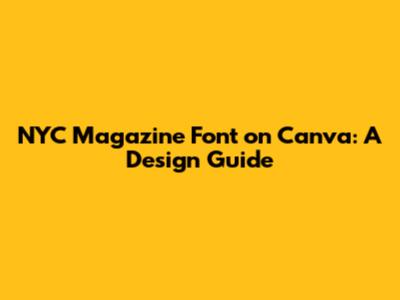
- Serif fonts: Garamond, Times New Roman (yes, it can be stylish!), and Didot are all great options for headlines or titles.
- Sans-serif fonts: Helvetica, Arial, and Futura provide clean and modern alternatives for body text or subheadings.
- Playfair Display: A beautiful serif font that works well for headlines.
- Montserrat: A clean and modern sans-serif font that's perfect for body text.
- Lora: A well-balanced serif font that's both readable and stylish.
- Oswald: A versatile sans-serif font that can be used for headlines or body text.
Hey guys! Ever flipped through The New Yorker or New York Magazine and thought, "Wow, that font is amazing!"? Well, you're not alone. The fonts they use have a certain je ne sais quoi – a sophisticated, stylish vibe that screams "big city." And the awesome news? You can totally snag a similar look for your own projects using Canva. Let's dive into how to achieve that iconic NYC magazine aesthetic right within Canva, making your designs pop with that same editorial flair. Getting that New York Magazine look isn't just about picking any old font; it's about understanding the subtle choices that make their designs so captivating. We're talking about font pairings, strategic use of typography, and creating a visual hierarchy that draws the reader in. Think of it as channeling your inner art director – even if you're just designing a simple social media graphic. The goal here is to emulate that sophisticated, intellectual feel that these publications are known for, while still keeping things fresh and modern. Whether you're crafting a blog header, an Instagram post, or even a presentation, these tips will help you infuse your work with that unmistakable NYC magazine vibe. Trust me, with the right fonts and a little creativity, you can transform your designs from ordinary to extraordinary. Let's get started and make some magic happen!
Decoding the Iconic NYC Magazine Font
Alright, let's break down what makes the fonts in NYC mags so special. When we talk about iconic fonts, we're often referring to the specific typefaces that define a publication's brand identity. For New York Magazine, this often includes a mix of classic and modern fonts that exude sophistication and readability. Think elegant serifs for headlines and clean sans-serifs for body text. These choices aren't arbitrary; they're carefully selected to convey the magazine's tone and appeal to its target audience.
Identifying Key Characteristics
First, let’s identify some key characteristics. The fonts typically used aren't just any fonts; they're usually classic, with a modern twist. Think serifs with strong personalities for headlines and clean, readable sans-serifs for body text. These fonts often have excellent legibility and a timeless quality that prevents them from looking dated. Magazines like New York Magazine often favor fonts that are versatile enough to work across various sections and layouts, maintaining a consistent visual identity. The key is balance – a mix of tradition and modernity that reflects the city itself.
Popular Font Choices
So, what are some popular font choices? While New York Magazine may use proprietary fonts or custom variations, many readily available fonts capture a similar essence. Some popular choices include:
These fonts are widely accessible and offer a solid foundation for emulating the magazine's style. Remember, the goal isn't to copy exactly, but to capture the overall aesthetic. You can experiment with different weights, sizes, and styles to achieve the desired effect. Don't be afraid to mix and match – just make sure your font pairings complement each other and enhance readability.
The Psychology Behind the Font
Ever thought about the psychology behind a font? It's pretty wild! Certain fonts evoke different feelings and associations. For example, serif fonts often convey a sense of tradition, authority, and trustworthiness, making them ideal for established publications. Sans-serif fonts, on the other hand, tend to feel more modern, clean, and approachable, which is why they're popular for tech companies and digital platforms. When choosing fonts for your designs, consider the message you want to convey and the audience you're trying to reach. A well-chosen font can enhance your credibility, capture attention, and create a lasting impression. Think of it as the visual equivalent of tone of voice – it sets the mood and guides the reader's experience.
Finding Your Perfect Match on Canva
Okay, now for the fun part: finding your perfect font match on Canva! Canva has a massive library of fonts, so it can feel a bit overwhelming. But don't worry, I'm here to guide you through it. First, head over to Canva and start a new design. Then, click on the text tool and start exploring the font options. Use the search bar to look for specific fonts or browse through the categories to discover new possibilities.
How to Search Effectively
To search effectively, use keywords like "serif," "sans-serif," "modern," or "classic" to narrow down your options. You can also try searching for specific font names if you have a particular style in mind. For instance, typing "Garamond" will bring up similar serif fonts that capture that classic, elegant feel. Don't be afraid to experiment with different combinations of keywords to find the perfect match for your project. The more specific you are, the easier it will be to find the fonts that align with your vision. Remember to preview each font before committing to it, and consider how it looks in different sizes and styles.
Canva Font Recommendations
Here are some Canva font recommendations that can help you achieve that NYC magazine look:
These fonts are just a starting point, so feel free to explore other options and find what works best for your design. Canva also offers a variety of font pairings that can help you create a cohesive and visually appealing layout. Experiment with different combinations until you find a balance that reflects your personal style and brand identity.
Utilizing Canva's Font Pairing Suggestions
Canva also offers font pairing suggestions, which are super handy if you're not sure where to start. These suggestions combine fonts that complement each other, creating a balanced and harmonious design. To access font pairing suggestions, simply select a text element in your design and click on the font dropdown menu. Canva will display a list of recommended font pairings based on your selected font. You can also browse through Canva's font pairing library for more inspiration. These suggestions can save you time and effort, while ensuring that your designs look professional and polished. Don't be afraid to tweak the pairings to suit your specific needs, but use them as a guide to get started. With a little experimentation, you'll be able to create stunning typography that elevates your designs to the next level.